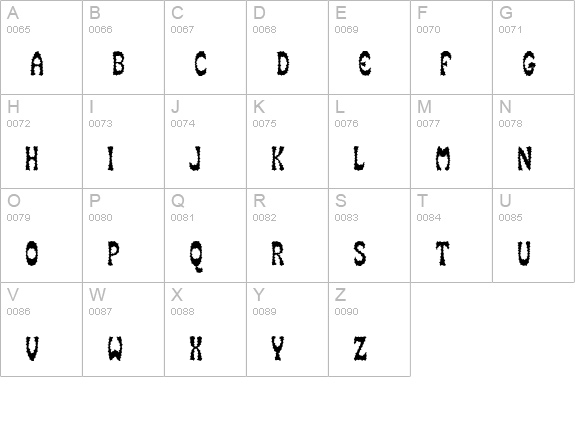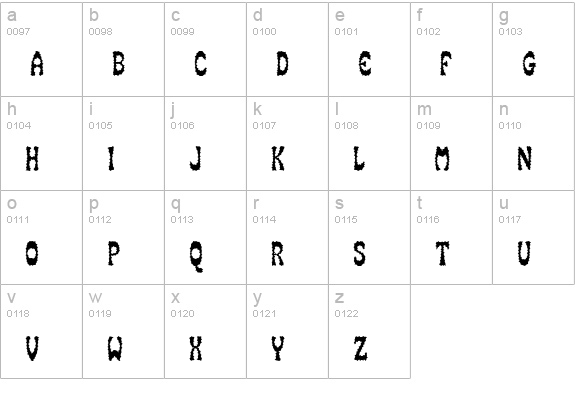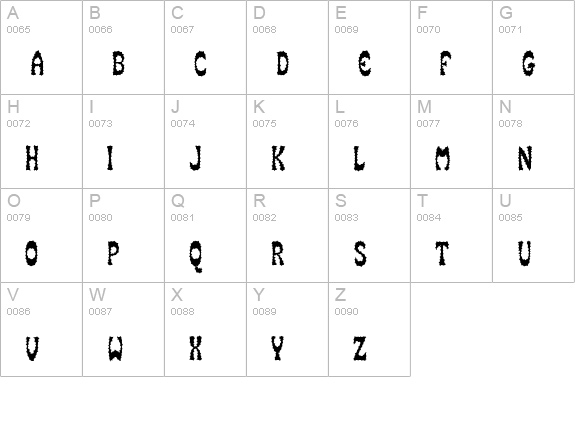
SmokeHouseRough Font Details
Introducing SmokeHouseRough font, a bold and edgy typeface that brings a touch of ruggedness to any design project. With its rough and textured appearance, this font captures the essence of a smokehouse, evoking images of sizzling barbecues and hearty flavors. SmokeHouseRough is perfect for creating eye-catching headlines, logos, and branding materials that demand attention. Its strong and robust letterforms give off an air of confidence and authenticity, making it an ideal choice for projects that require a bold and impactful visual presence. This font is not only visually appealing but also versatile. Whether you're designing a menu for a barbecue restaurant, creating posters for a music festival, or crafting labels for artisanal products, SmokeHouseRough will add a unique and distinctive touch to your work. But the best part? SmokeHouseRough is absolutely free! Available for download at FontsMarket.com, this font can be accessed by everyone, regardless of budget or design experience. Now, you can incorporate the rustic charm of SmokeHouseRough into your designs without breaking the bank. So, why wait? Get your hands on SmokeHouseRough today and start adding a touch of smoky flair to your next design project. With its free availability and undeniable visual impact, this font is a must-have for any designer or creative enthusiast.